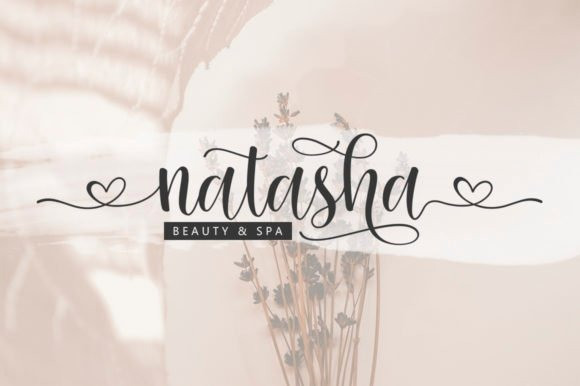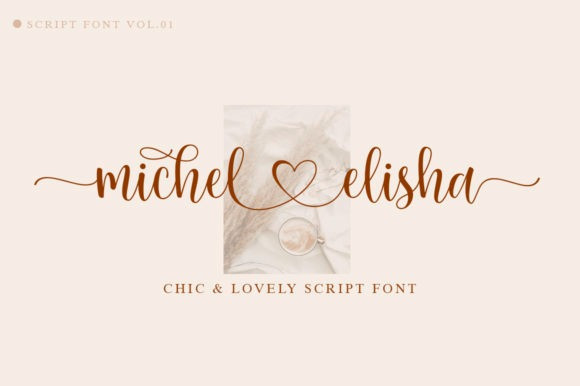
Gifolgh Calligraphy Font
Gifolgh is an Authentic Script font with a decorative touch. Trendy and feminine style. it looks lovely on wedding invitations, thank you cards, quotes, greeting cards, logos, business cards and more.